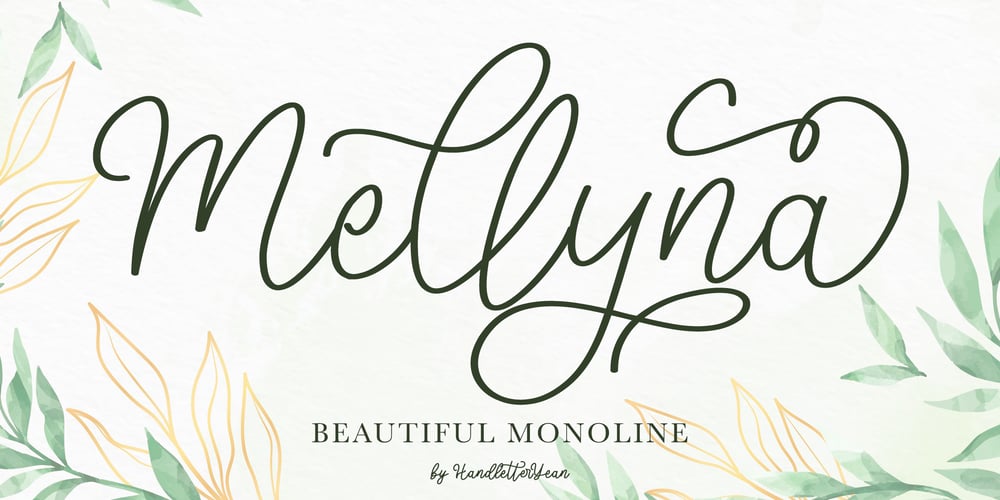
Mellyna Font Family was designed by Yean Aguste and published by HandletterYean. Mellyna contains 4 styles and family package options. Mellyna is an elegant and flowing handwritten font. It is PUA encoded which means you can access all of the glyphs and swashes with ease! It features a varying baseline, smooth lines, gorgeous glyphs and stunning alternates. It maintains its classy calligraphic influences while feeling contemporary and fresh. Fall in love with this font and bring your projects to the highest levels!To access the alternate glyphs, you need a program that supports OpenType features such as Adobe Illustrator CS, Adobe Photoshop CC, Adobe Indesign, and CorelDraw. More information about how to access alternate glyphs, check out this link: http://goo.gl/ZT7PqK